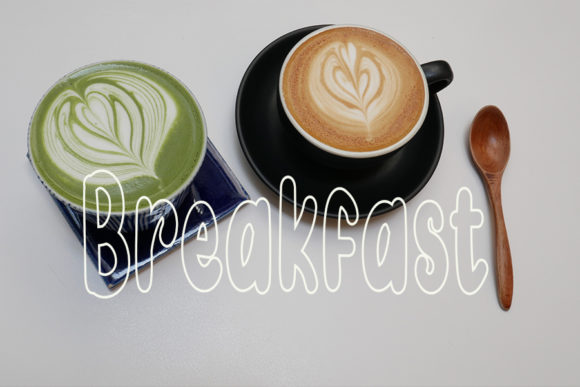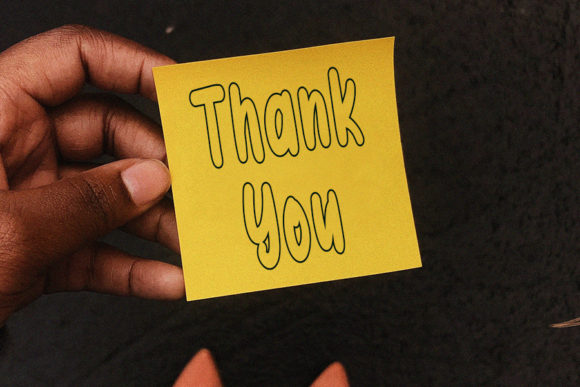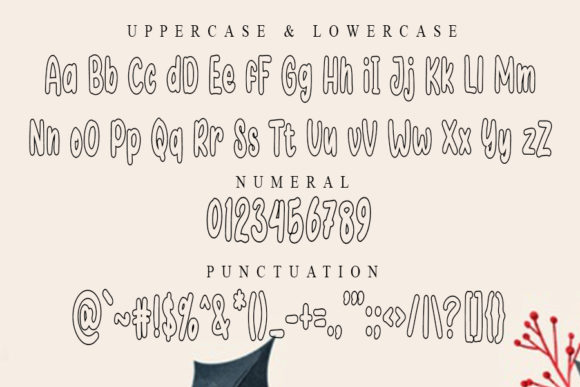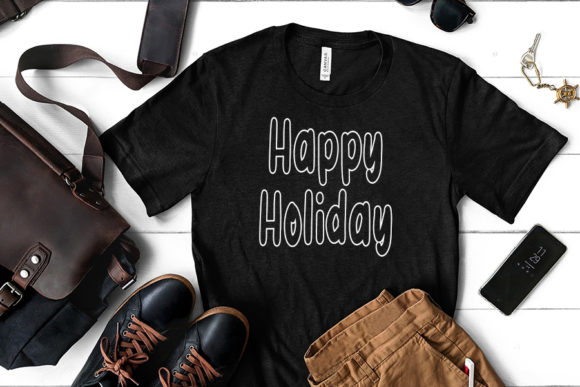
Coffee Break Font: The Perfect Addition to Your Holiday Crafting Projects
Are you a designer or crafter looking for a unique and friendly font to add a personal touch to your holiday-themed greeting cards and crafting projects? Look no further than the Coffee Break Font. This thick lettered yet approachable display font is ideal for adding a sweet and festive touch to your creations.
What is Coffee Break Font?
Coffee Break Font is a display font designed to evoke the feeling of warmth and comfort associated with a cup of coffee on a chilly day. Its thick letters and friendly demeanor make it perfect for use in holiday-themed greeting cards, crafting projects, and other applications where a personal touch is desired.
Characteristics of Coffee Break Font
- Thick Lettered: Coffee Break Font features thick, bold letters that are easy to read and make a statement.
- Friendly Display Font: The font has a friendly and approachable feel, making it perfect for use in crafting projects and holiday-themed greeting cards.
- Versatile: Coffee Break Font can be used in a variety of applications, from digital designs to print projects.
Uses for Coffee Break Font
Coffee Break Font is ideal for a variety of crafting projects and design applications, including:
- Holiday-Themed Greeting Cards: Add a personal touch to your holiday greeting cards with Coffee Break Font.
- Crafting Projects: Use Coffee Break Font to add a sweet and festive touch to your crafting projects, such as scrapbooking and DIY decorations.
- Digital Designs: Coffee Break Font can be used in digital designs, such as social media graphics and blog posts.
- Print Projects: The font is also suitable for use in print projects, such as flyers, brochures, and posters.
Why Choose Coffee Break Font?
There are many fonts available for use in crafting projects and design applications, but Coffee Break Font stands out for several reasons:
- Unique Style: Coffee Break Font has a unique and distinctive style that sets it apart from other fonts.
- Ease of Use: The font is easy to read and use, making it perfect for designers and crafters of all skill levels.
- Versatility: Coffee Break Font can be used in a variety of applications, from digital designs to print projects.
Tips for Using Coffee Break Font
Here are a few tips for using Coffee Break Font in your crafting projects and design applications:
- Pair with Other Fonts: Coffee Break Font can be paired with other fonts to create a unique and visually appealing design.
- Experiment with Colors: The font looks great in a variety of colors, so don’t be afraid to experiment and find the perfect color for your project.
- Use in Combination with Images: Coffee Break Font can be used in combination with images to create a visually appealing design.
Coffee Break Font is a unique and versatile font that is perfect for adding a personal touch to your holiday-themed greeting cards and crafting projects. Its thick letters and friendly demeanor make it a great choice for designers and crafters looking for a font that is both easy to read and visually appealing. With its ease of use and versatility, Coffee Break Font is a great addition to any design or crafting project.